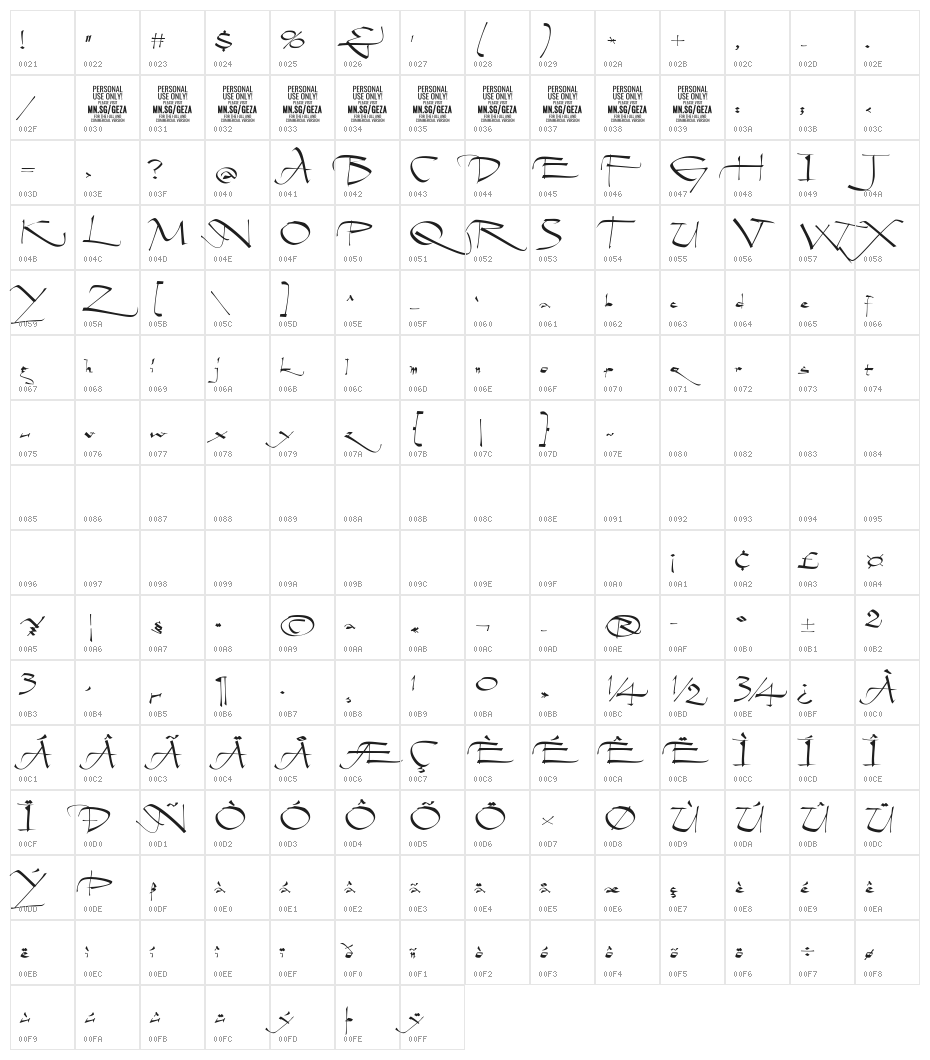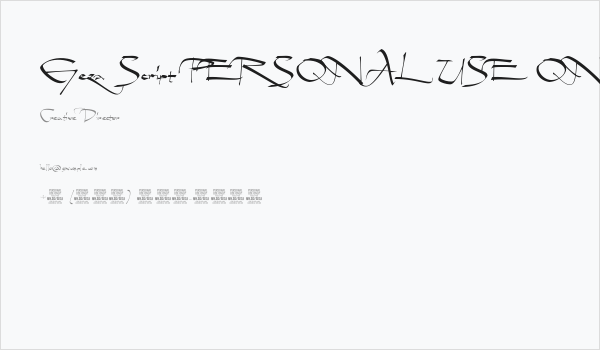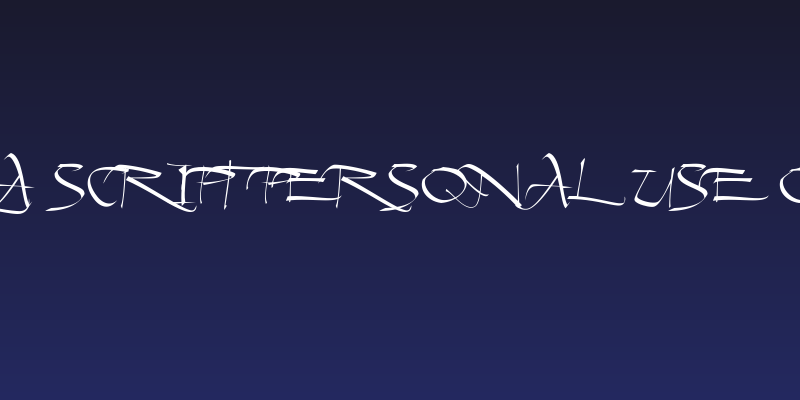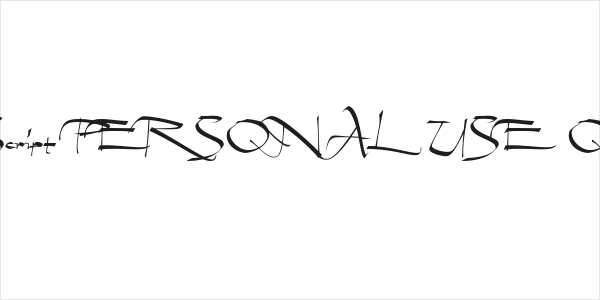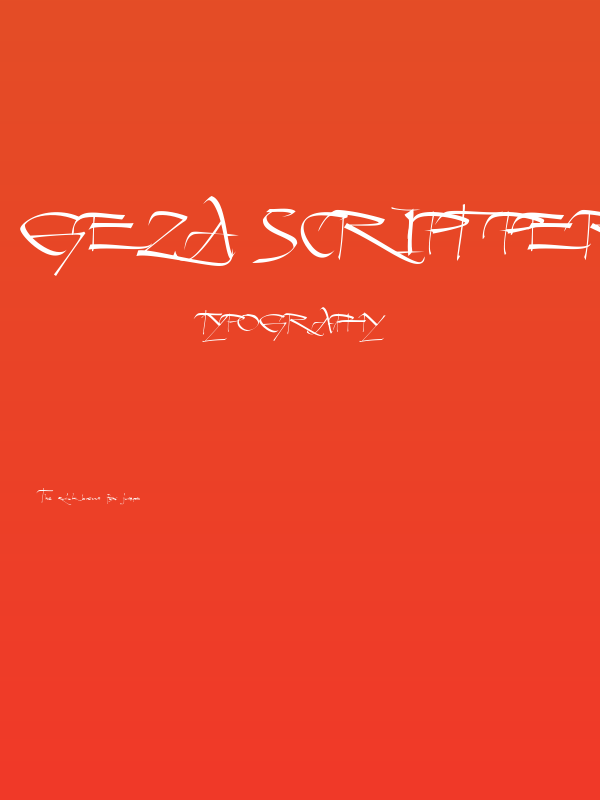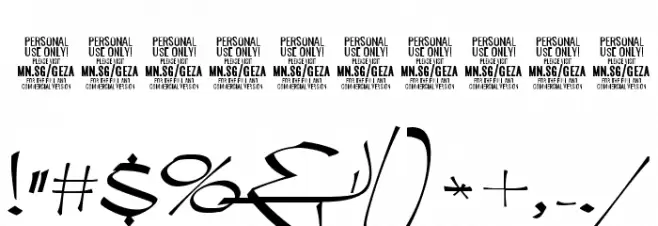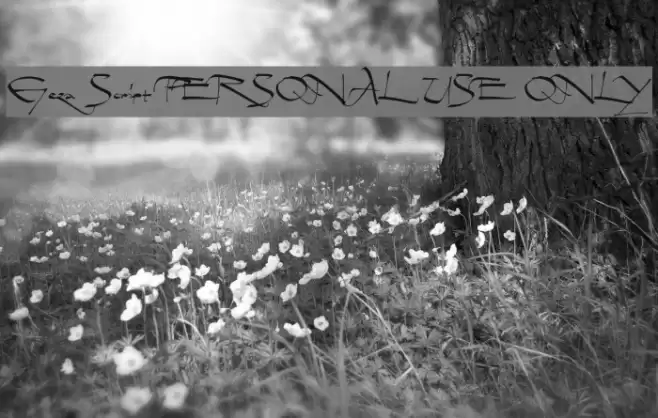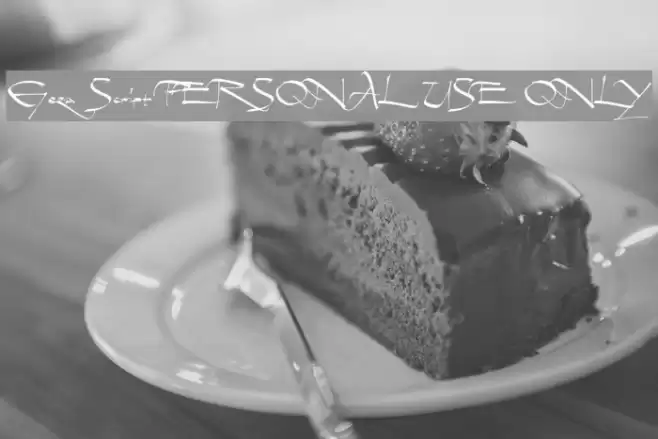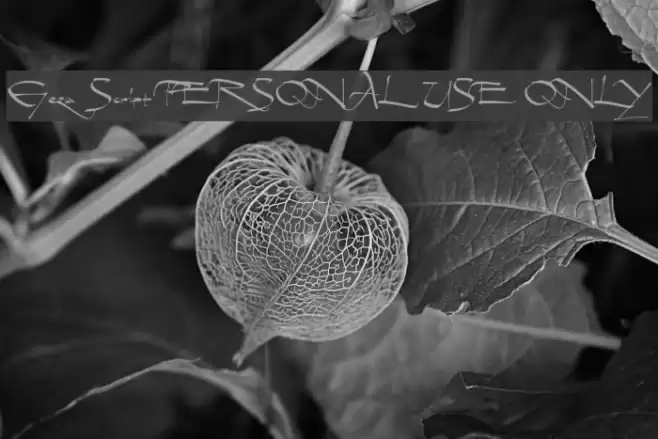
Geza Script PERSONAL USE ONLY Font
Geza Script PERSONAL USE ONLY Description
This font features a dynamic and expressive script style, characterized by its sharp, angular strokes and fluid connections. The uppercase letters have a dramatic flair with elongated lines and intricate curves, while the lowercase letters maintain a consistent flow with unique, artistic forms. The numerals and special characters complement the overall aesthetic with their bold and distinctive shapes. This font exudes a sense of creativity and individuality, making it ideal for projects that require a personal touch.
| Use Case | Logos, Headlines, Artistic projects |
| Proposed Projects | Ideal for creative projects such as invitations, artistic branding, and expressive posters. |